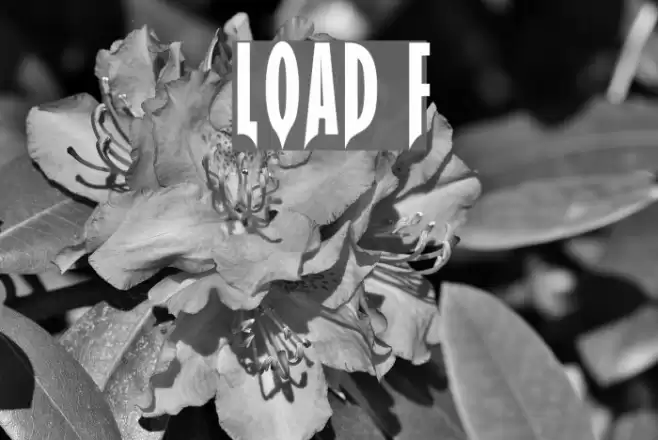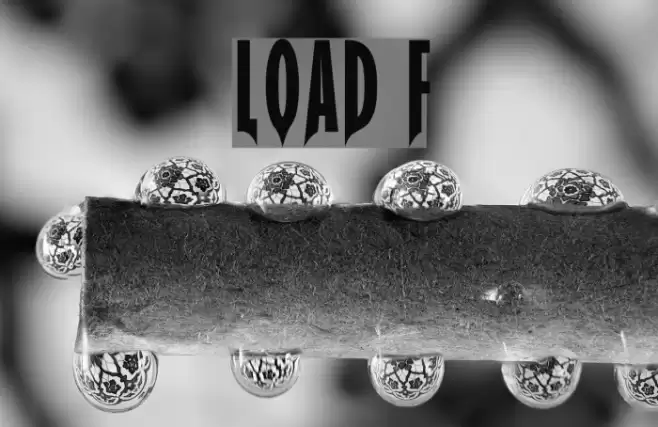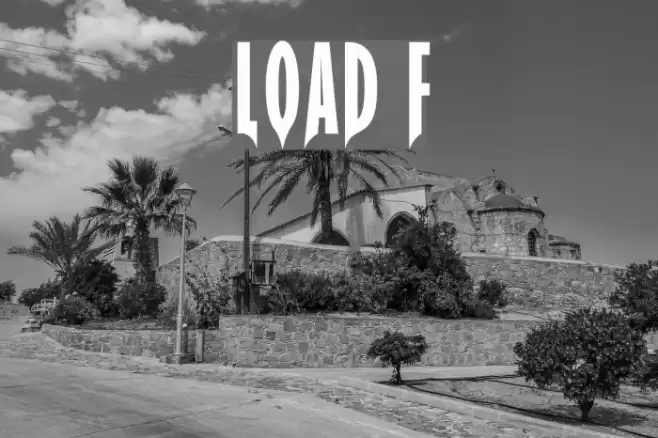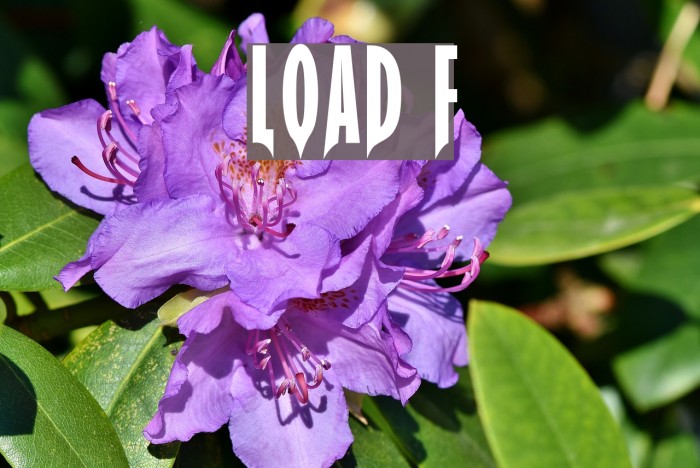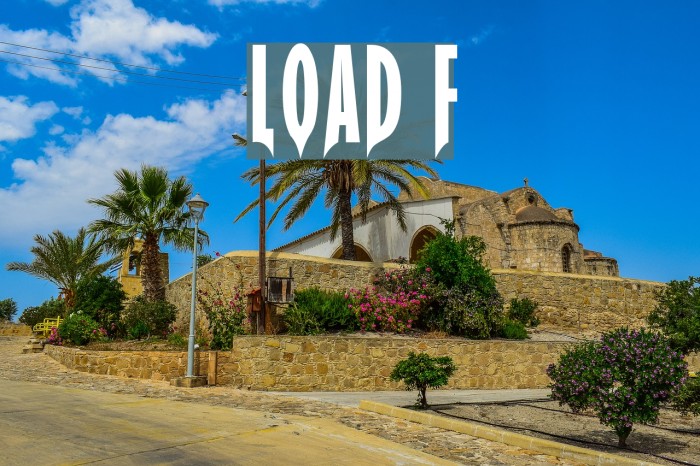
LOAD Font
LOAD Description
This font features a bold and dramatic style with tall, narrow characters that have a distinct, sharp edge. The uppercase letters are particularly striking, with a strong vertical emphasis and slight inward curves at the top and bottom, creating a dynamic and energetic appearance. The lowercase letters maintain this boldness, ensuring consistency across the typeface. Numbers are equally bold and maintain the same vertical emphasis, making them highly legible. Special characters are designed with the same attention to detail, ensuring they integrate seamlessly with the rest of the font. This typeface is ideal for making a strong visual impact.
A bold, dramatic font with tall, narrow characters and sharp edges from Crazy fonts.
- Proposed Projects: Ideal for posters, headlines, branding, and any project requiring a strong visual impact.
- Character Spacing: Tight